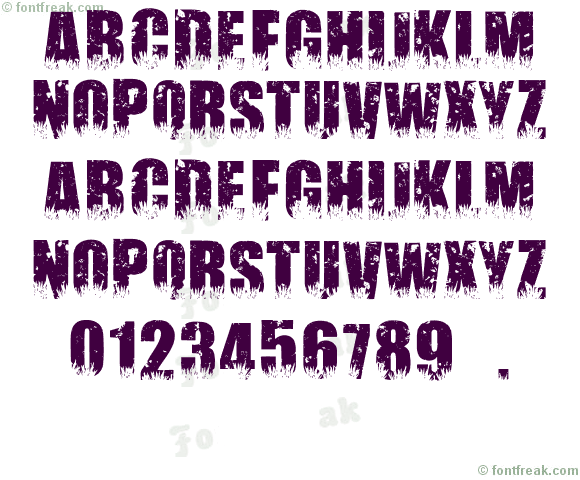
Gardiendherbev2 Regular
Gardiendherbev2 Regular, designed by Cloutierfontes, is a striking display font that captivates with its distinctive and bold visual style. This font falls under the category of decorative typefaces, characterized by its rugged and textured appearance, which gives it a unique edge. The stroke weight is consistent yet varies in texture, creating an engaging contrast that draws the eye. The spacing between letters is thoughtfully designed to ensure readability while maintaining a strong visual impact, making it an excellent choice for attention-grabbing designs.
This font is particularly well-suited for a variety of creative projects. Its bold and expressive nature makes it ideal for movie posters, where dramatic visuals are essential to capture audience interest. It also shines in the realm of music album covers, where artistic flair is paramount. Additionally, Gardiendherbev2 Regular can elevate restaurant menus, providing a playful yet sophisticated touch that invites diners to explore the offerings. For graphic designers and content creators looking to add an element of flair to their work, this font serves as a perfect tool for crafting unique brand identities and marketing materials.